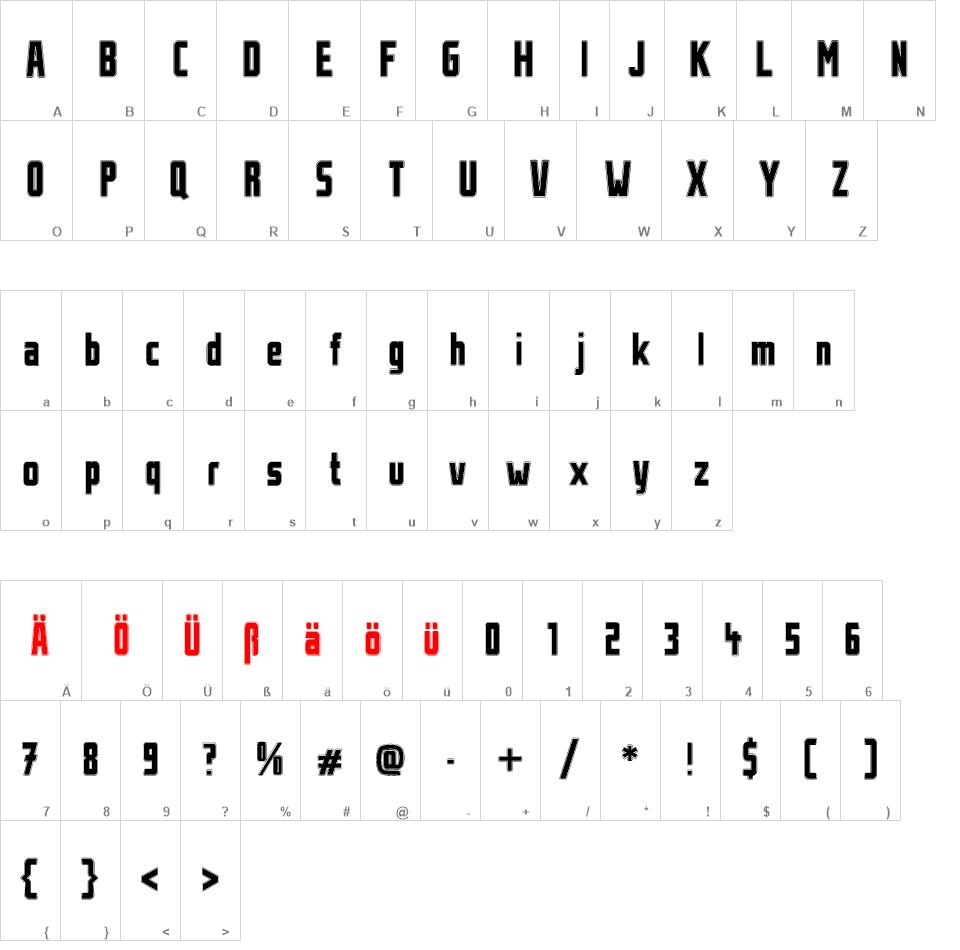
Stahlbetontraeger
Stahlbetontraeger font
Stahlbetontraeger is a modified Fonts by "www.nils-von-Blanc.de" 2008.
The Font was inspired by Patric Schwarz and his "Stahlbeton" Font.